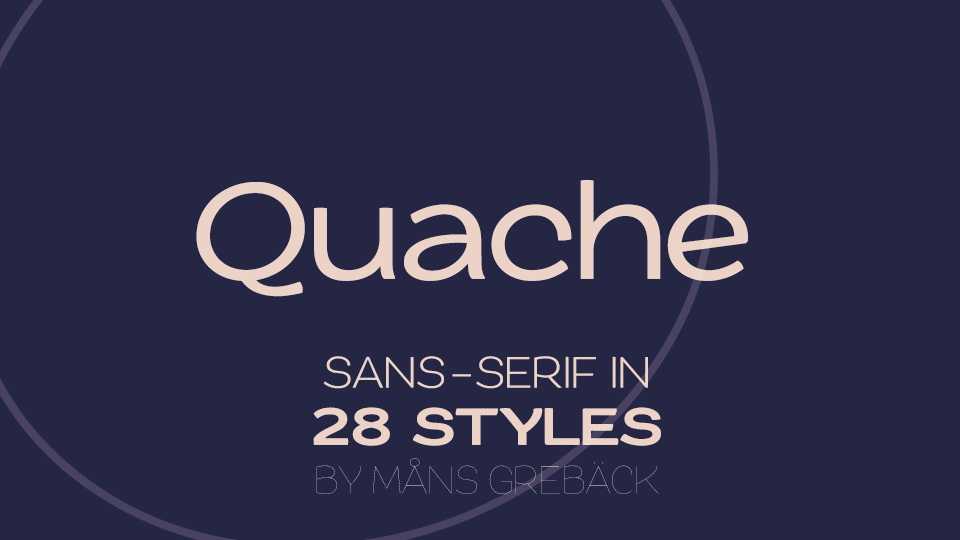
Download Quache typeface, a flexible sans-serif font family of 28 styles. Quache has unique, stylish curvatures and is clear, legible and sharp with open letter forms.
Designer: Måns Grebäck